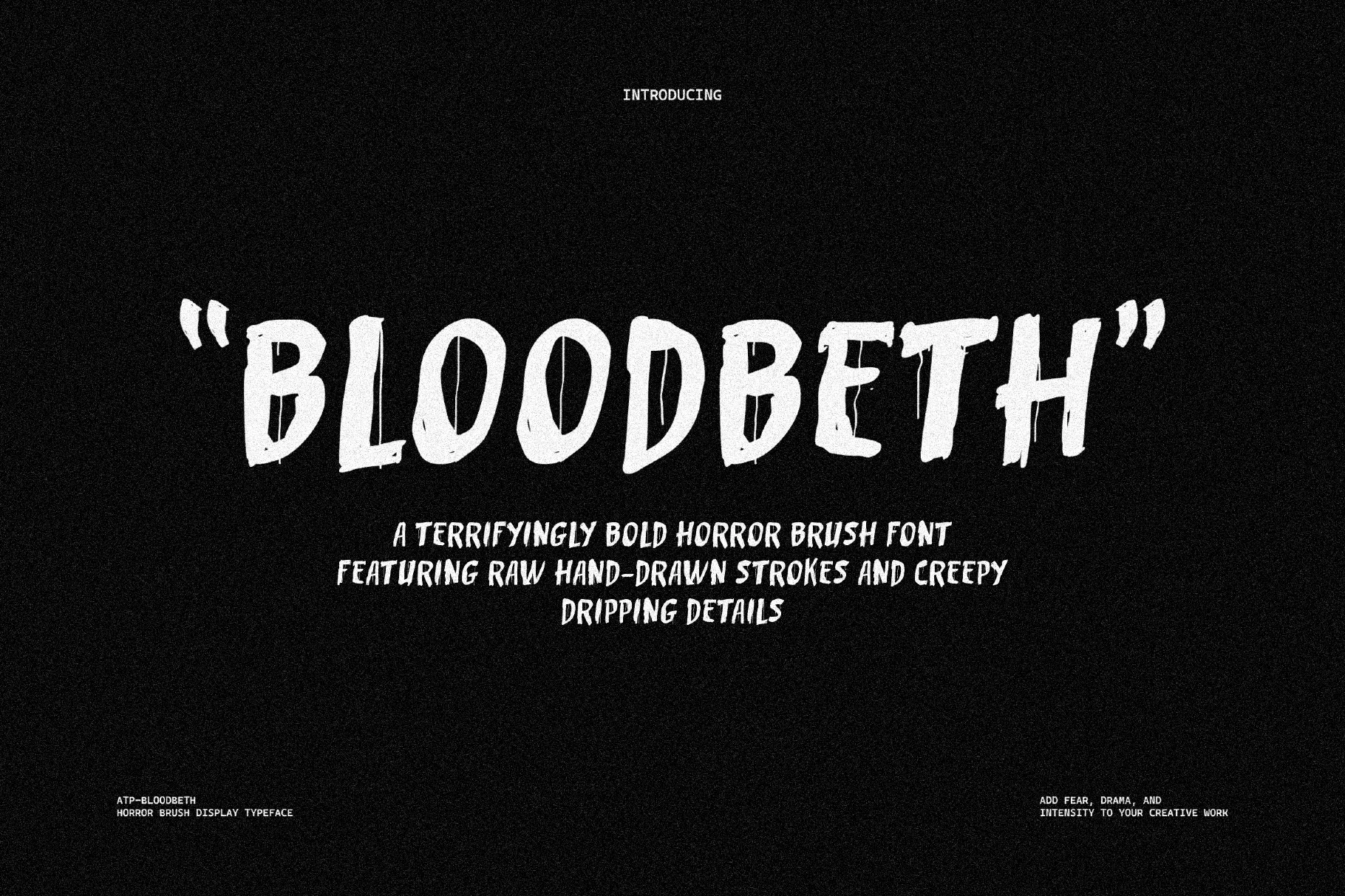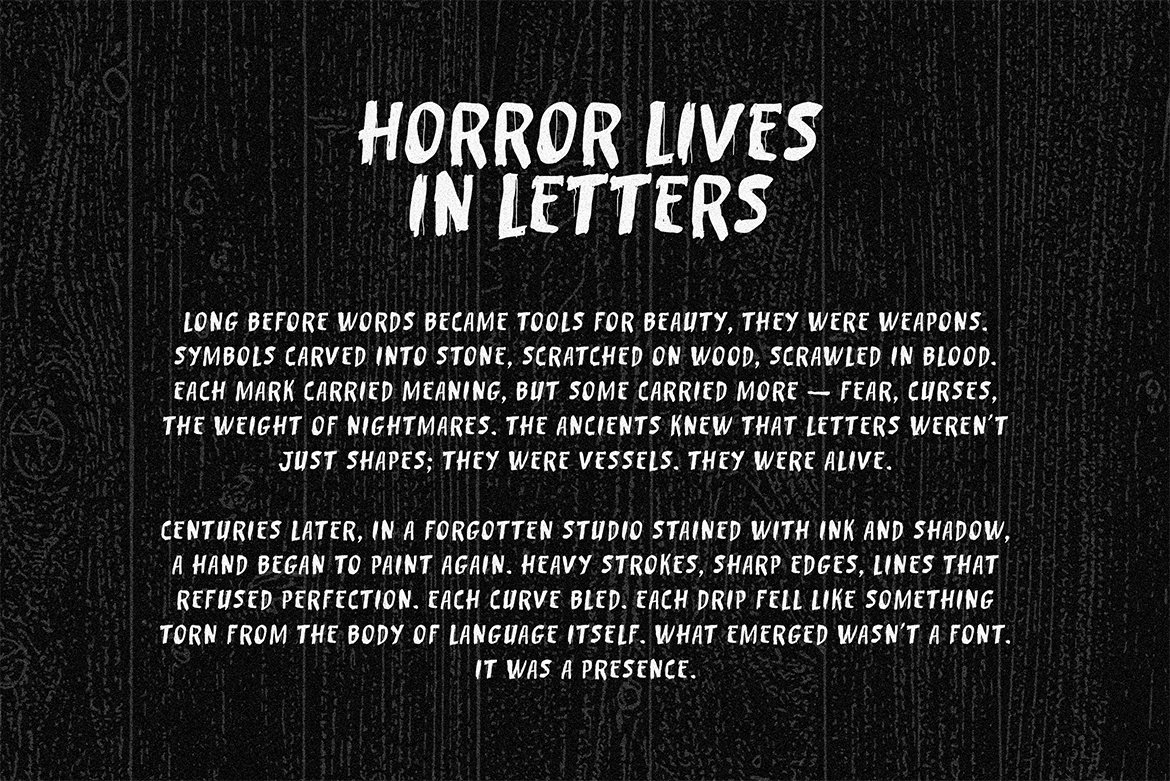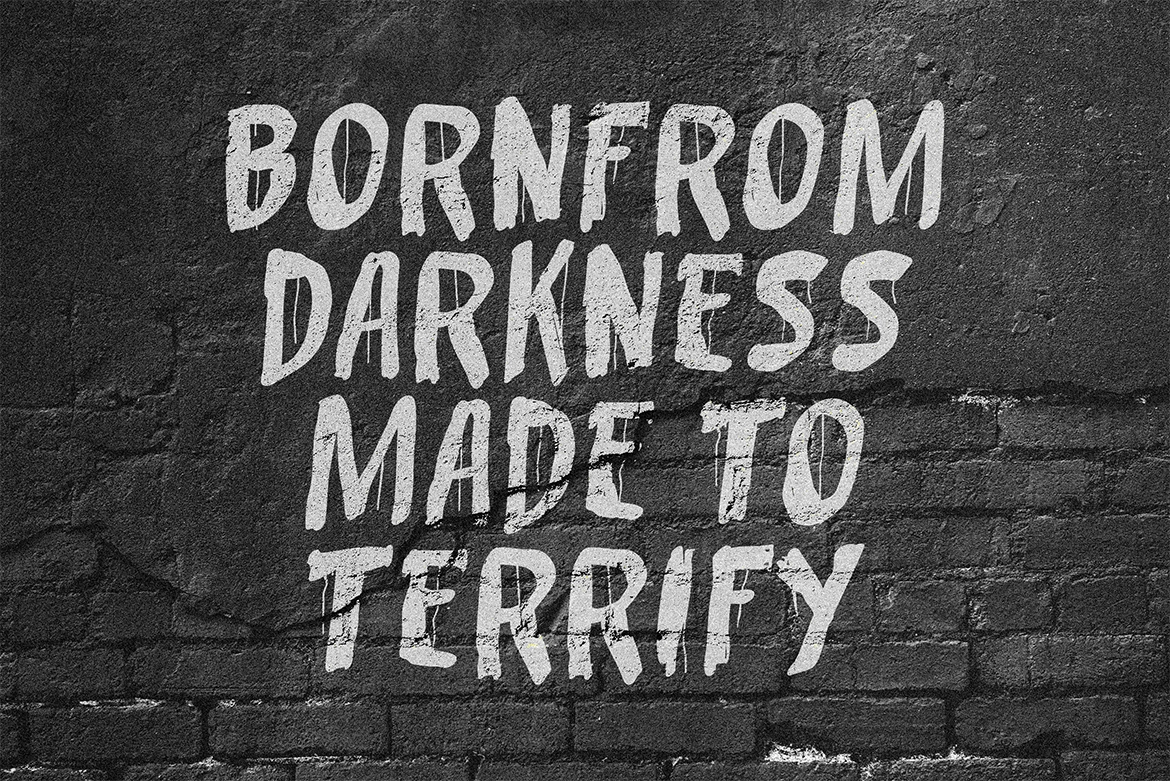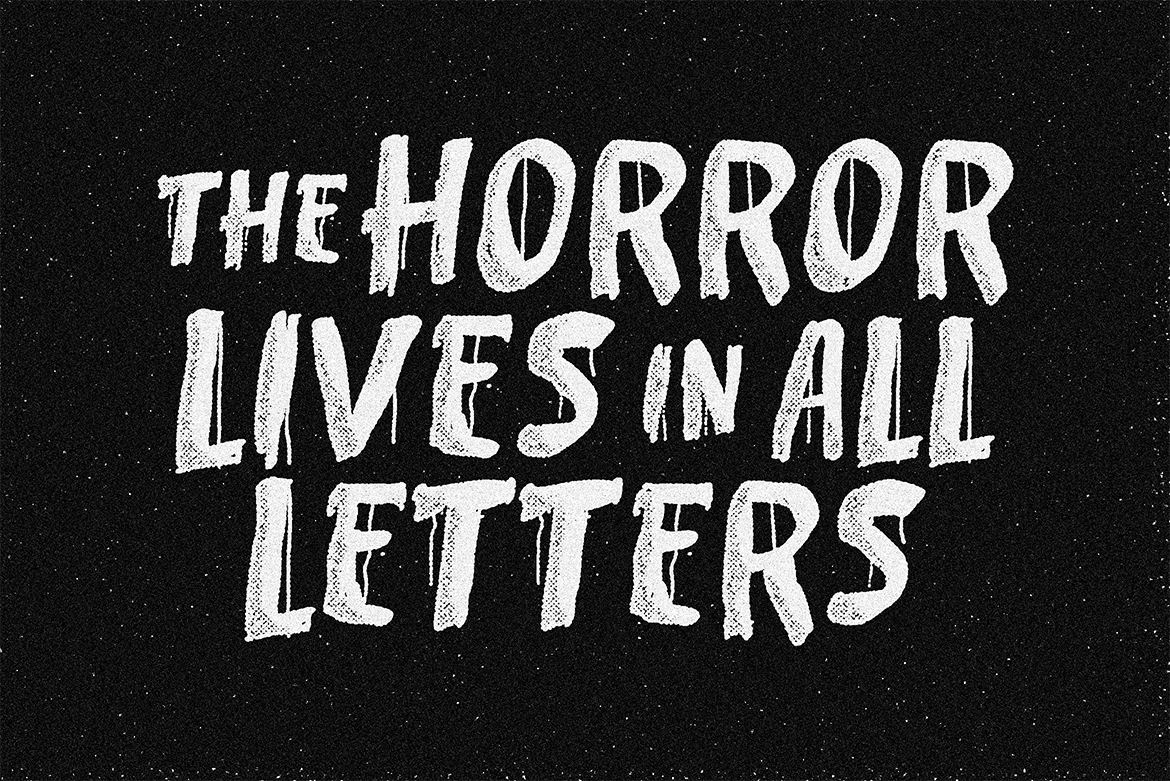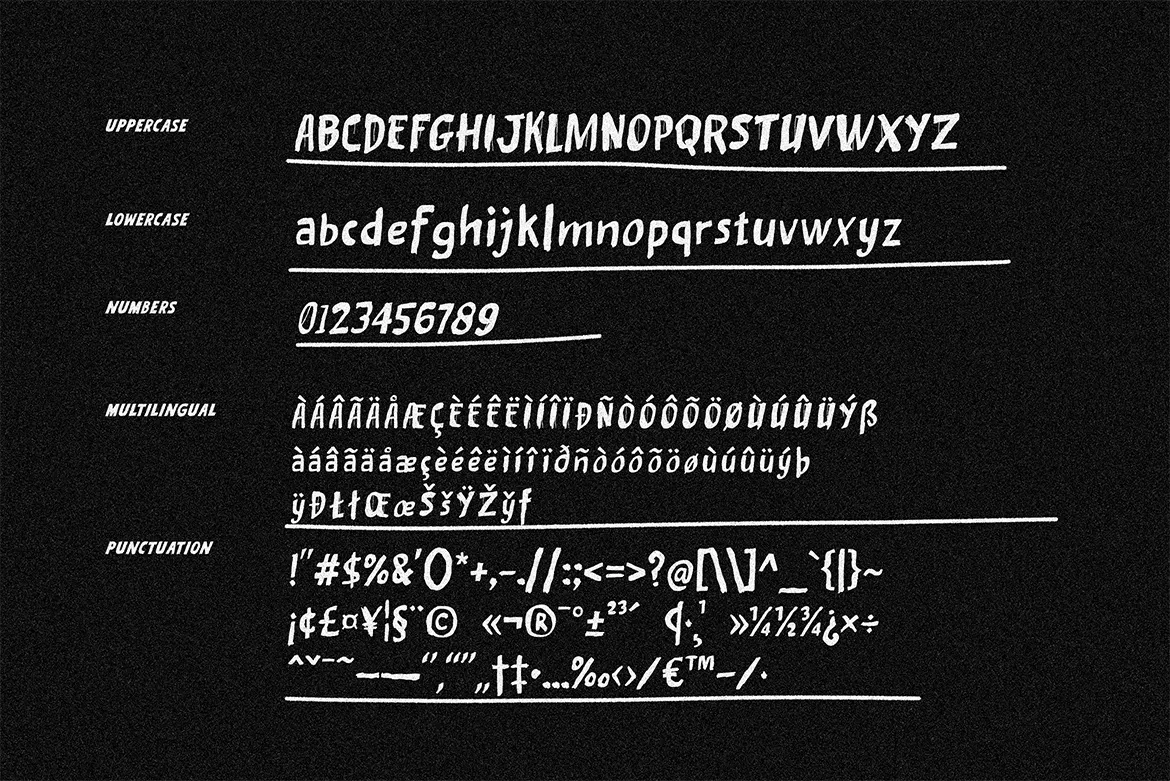
BloodBeth – Horror Brush Font
ATP-Bloodbeth
Unleash a chilling atmosphere in your designs with BloodBeth – Horror Brush Font , a bold and hand-drawn typeface that captures the essence of fear and suspense. Featuring rough brush textures and eerie dripping details, this font delivers a dark, grunge-inspired look perfect for horror-themed projects.
Ideal for movie titles, posters, Halloween designs, album covers, and gaming graphics, BloodBeth adds intensity and drama to any composition. Its expressive letterforms and gritty handcrafted feel make it a must-have for designers who crave something truly spine-tingling.